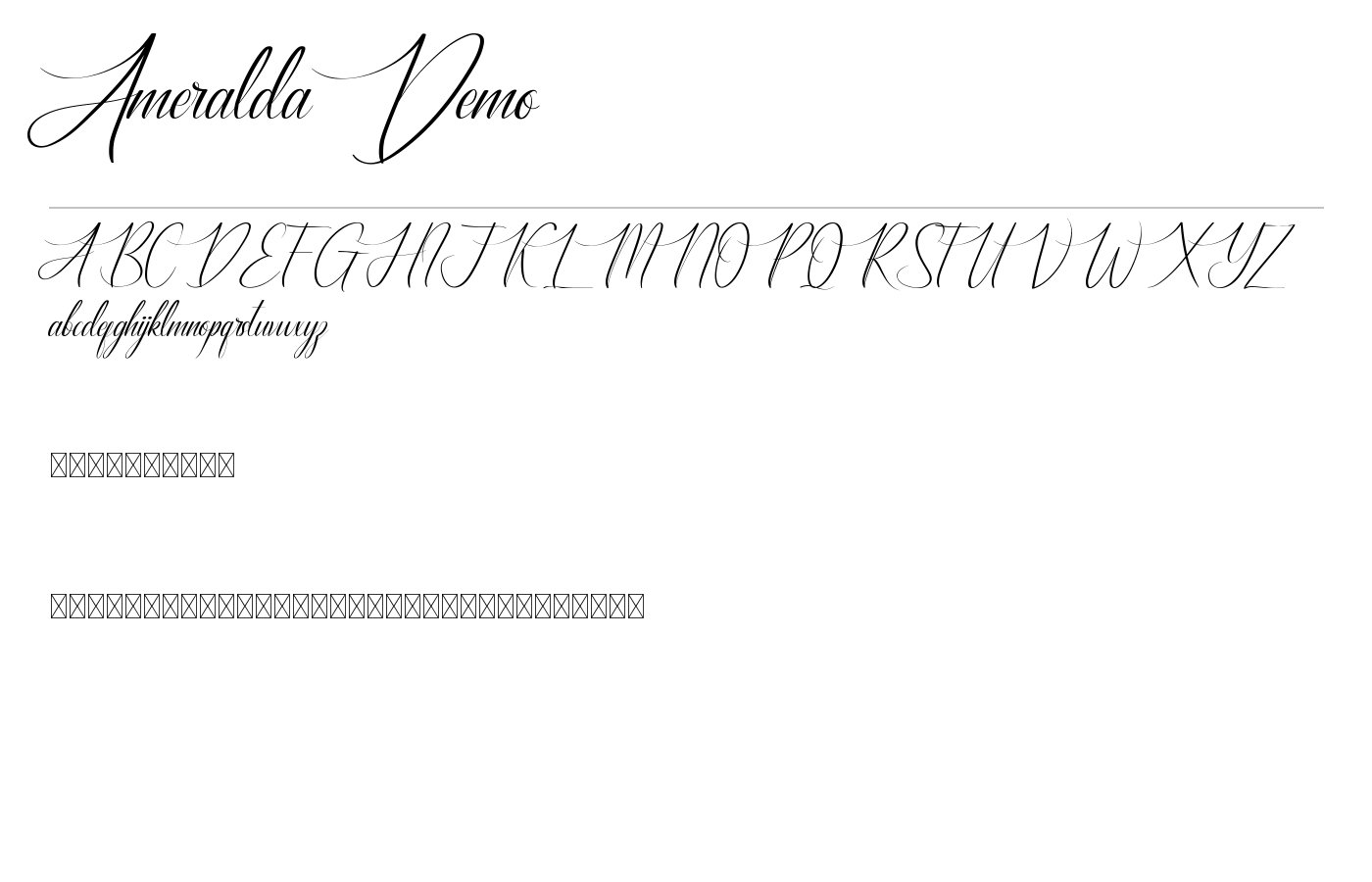
Ameralda Demo is an elegant, thin script font with flowing, delicate strokes that give it a graceful and refined appearance. Its high contrast and intricate letterforms make it ideal for sophisticated branding, invitations, and luxury design projects where a stylish, handwritten feel is desired. This font works best in large sizes for headlines or decorative use due to its fine details and ornamented style.
Ameralda Demo Font
About Ameralda Demo Font